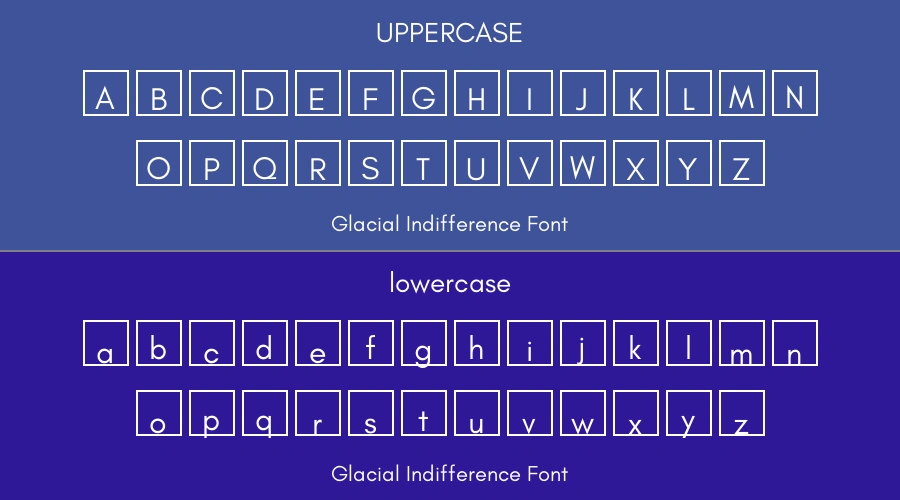
About Glacial Indifference Font
Glacial Indifference Font represents a sophisticated approach to type design, balancing dynamic forms with rhythmic flow. Perfect for advertising campaigns, this font family showcases impressive precision and craft excellence throughout its character set. Designers appreciate its versatility and reliability.
Designers will appreciate nuanced touches including ligatures and proportional figures, adding sophistication to any project. These features become apparent in heritage publications, where texture integration matters most. The careful treatment of crossbar height and market positioning ensures optimal performance.